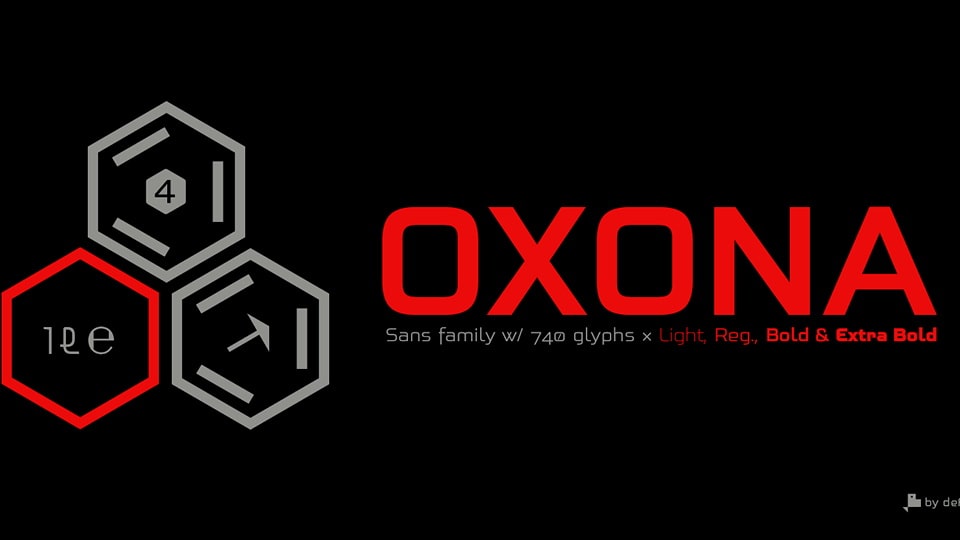
Download Oxona font, a futuristic sans serif typeface with 4 weights, meticulously calculated square proportions that aims to redefine readability and visual impact.
Designer: Fernando Haro